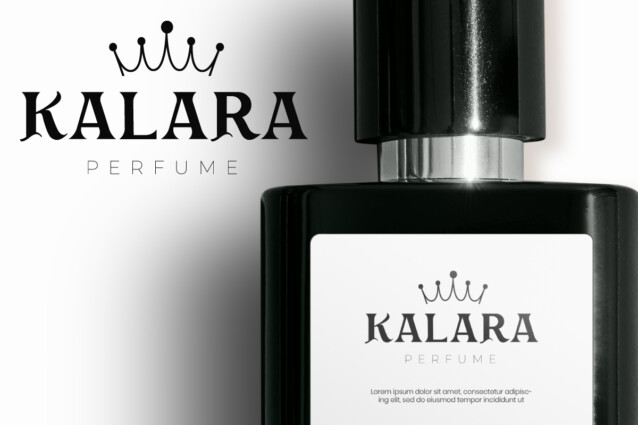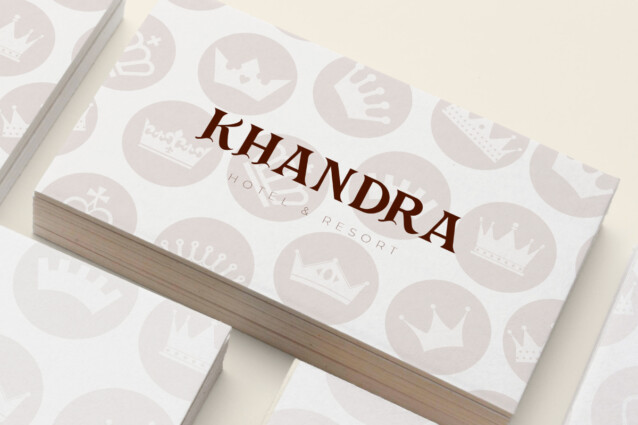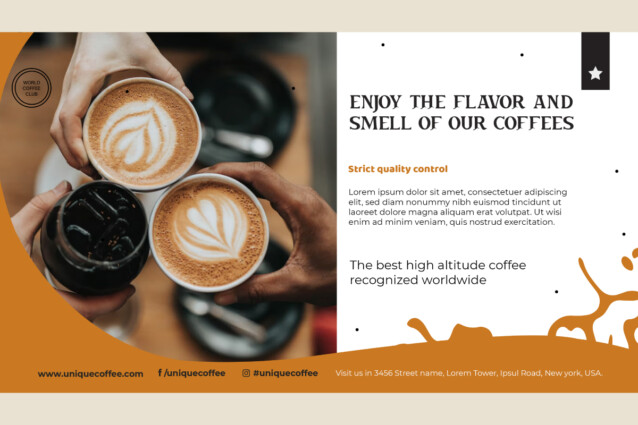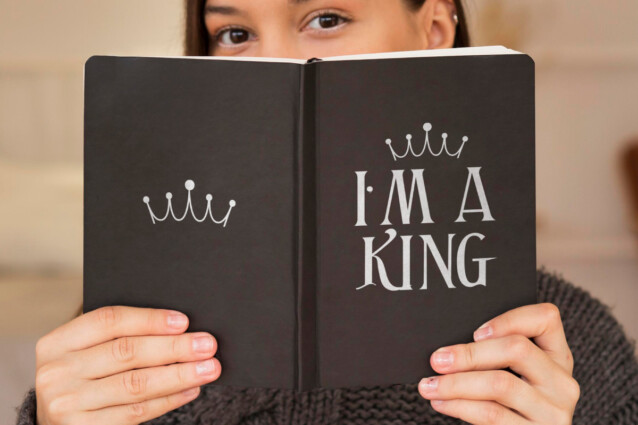
King Battle Font
King Battle Font is a classic display font with the concept of an ancient kingdom. The typeface is also inspired by the gothic look, but is made more modern and doesn’t take away from the old feel so it will suit any industry, such as accessories, advertisement, artist, café, clothing brand, event or festival, fashion designer, film, furniture, handicrafts, hotel, movie, perfume brand, pottery, printing, publishing, restaurant, writer, etc.